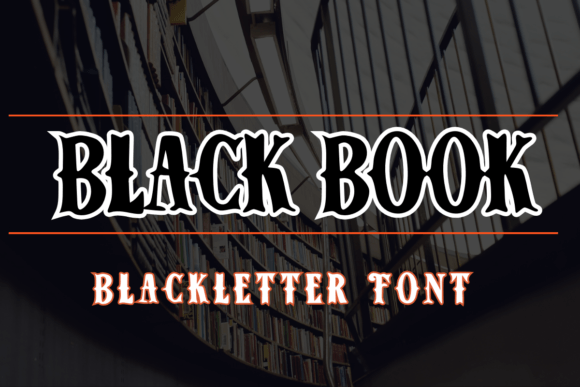
The Timeless Charm of Black Book Font: A Designer’s Delight
I still remember the design project that made me fall in love with the Black Book font. I was working on a medieval-themed craft project, and I needed a font that would transport my clients back in time. After hours of scouring the internet, I stumbled upon Black Book – a stunning blackletter font that looked like it belonged in a medieval manuscript. Its bold, angular lines and fancy details instantly captivated me, and I knew I had found the perfect fit. In this article, I’ll share my love for Black Book, its quirks, and provide a practical guide on how to use it in various design platforms.
An Honest Review of Black Book Font
What I Love About Black Book Font ✨
- ✅ Dramatic and eye-catching: Black Book font is perfect for creating a statement piece or adding a touch of drama to your design.
- ✅ Historically inspired: Its medieval roots make it an excellent choice for projects that require an antique or vintage look.
- ✅ Highly versatile: Black Book font can be used for titles, headings, and even body text, depending on the design.
- ✅ Elegant and sophisticated: The font’s intricate details and bold lines give it a luxurious feel.
While Black Book font is an excellent choice for many projects, it’s not without its limitations. Here are a few things to keep in mind:
- 🤔 Legibility at small sizes: Black Book font can be challenging to read at small sizes, so it’s best used for headings or titles.
- 🤔 Limited use in body text: Due to its bold and decorative nature, Black Book font may not be the best choice for lengthy body text.
If you love Black Book font, you may also enjoy these similar fonts and alternatives:
- Fraktur: A classic blackletter font with a similar medieval feel.
- Old English Text: A elegant and sophisticated font with a vintage look.
- Lucida Blackletter: A modern take on the traditional blackletter font.
- Textura: A beautiful, intricate font with a historical feel.
The Backstory of Black Book Font
Black Book font is believed to have been inspired by medieval manuscripts and early printed books. Its designer aimed to create a font that would evoke the mystery and elegance of a bygone era. While the exact origins of Black Book font are unclear, its timeless charm and versatility have made it a favorite among designers and crafters.
Q: What is the best use for Black Book font?
A: Black Book font is ideal for creating dramatic headings, titles, and statements in your designs. It’s perfect for medieval-themed projects, vintage-inspired designs, and elegant crafts.
Q: Can I use Black Book font for body text?
A: While possible, Black Book font may not be the best choice for lengthy body text due to its bold and decorative nature. It’s best used for headings or titles.
Q: Is Black Book font suitable for digital designs?
A: Yes, Black Book font can be used in digital designs, but it’s essential to consider legibility at small sizes. Use it for headings, titles, or statements to add visual interest.